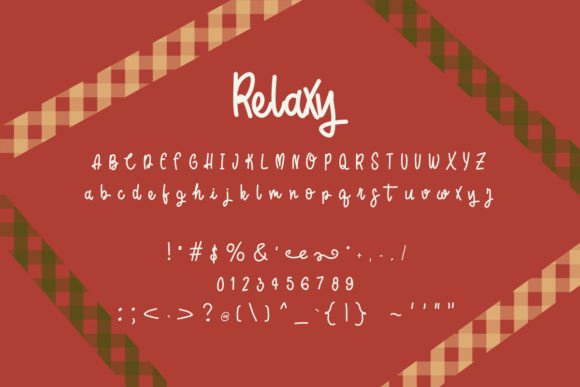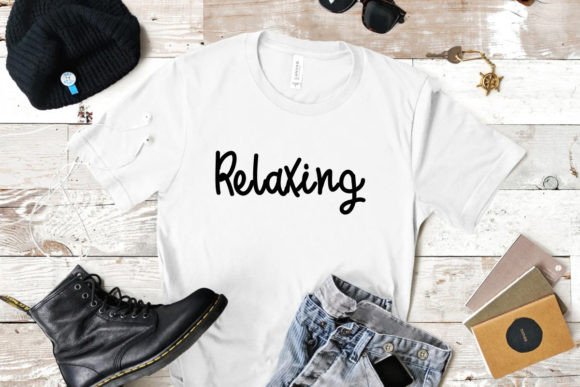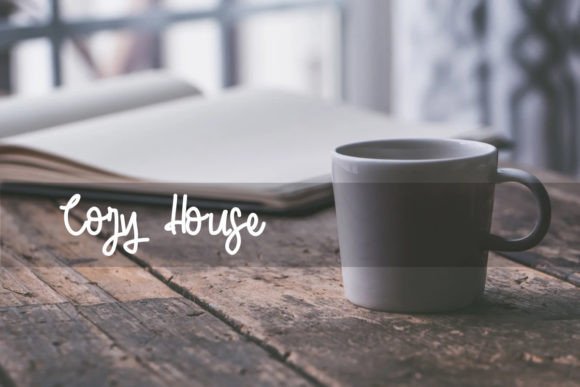
About Relaxy Font
Relaxy is a graceful, modern handwritten calligraphic font. With its beautiful rhythm, this font will help you create gorgeous and classy compositions. Use it for branding projects, invitations, web graphics, cards, and many more! This font will add a luxury spark to any design project you wish to create!